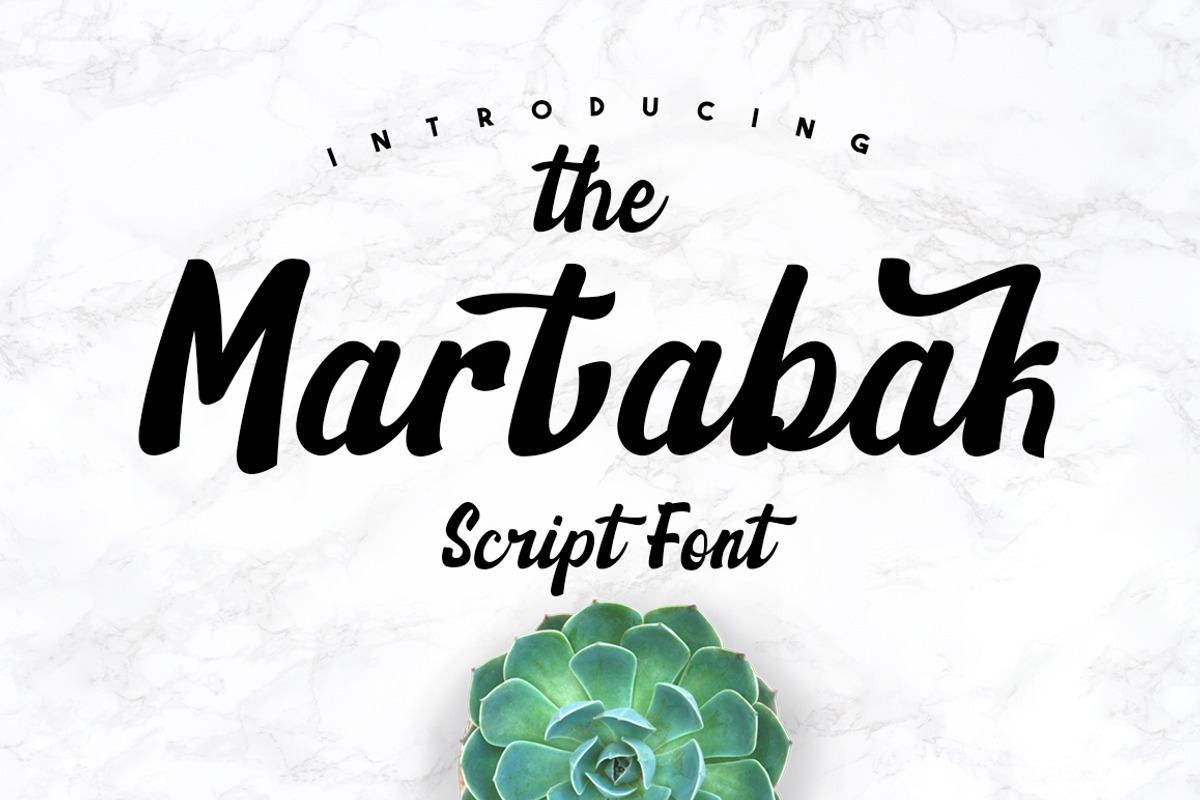
Martabak Script Font Free Download is a sweet and stylish handwritten typeface with smooth, flowing curves and a friendly personality. Inspired by the comfort and charm of homemade treats, this font is perfect for food branding, café menus, product packaging, invitations, and any design that needs a warm, handcrafted touch.
Its casual script style offers just the right mix of elegance and approachability—ideal for lifestyle content, bakery logos, or creative social media posts. The brush-like strokes and natural rhythm of the letters make it feel personal and full of flavor.
Designers love Martabak Script for its versatility and inviting vibe. Ready to add a delightful handwritten flair to your next project? Download Martabak Script Font Free Download and let your typography feel as satisfying as its name.